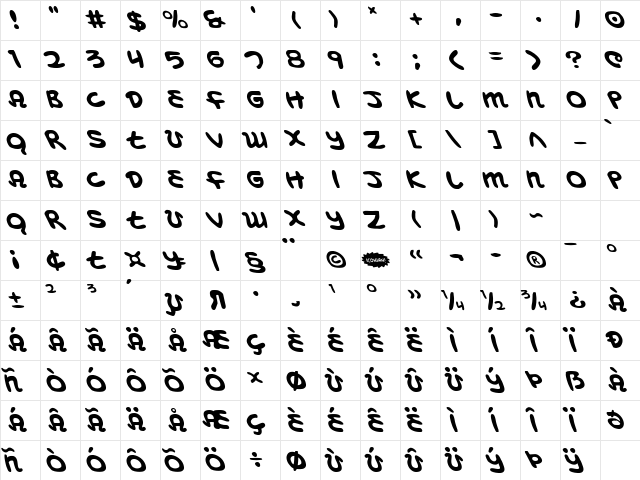
Complete Magic Beans Leftalic glyph index. Displaying only characters natively supported by Magic Beans Leftalic font.
Magic Beans Leftalic is a composed and adaptable typeface that performs quietly and consistently across a wide range of design contexts. The slanted form adds forward momentum and visual energy.
Pro Tip: Use Magic Beans Leftalic for emphasis, pull quotes, and subheadings where its slanted energy can add rhythm to the layout.